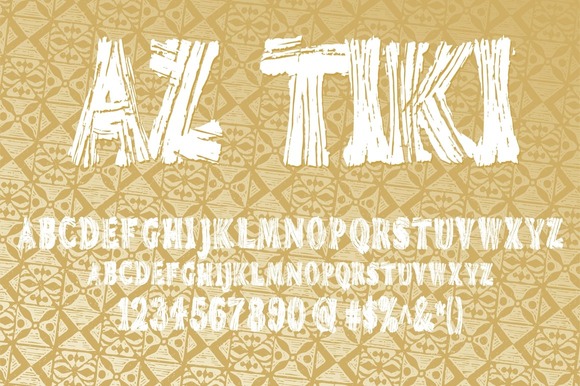
The Retro Charm of AZ Tiki Font: A Designer’s Delight
I’ll never forget the time I was working on a project for a client’s luau-themed party invitation. I had the design concept nailed, but I was struggling to find the perfect font to capture the essence of 50’s pop art from Polynesia. That’s when I stumbled upon AZ Tiki Font, and it was love at first sight! 💕
In this article, I’ll share my experience with AZ Tiki Font, its features, and how to make the most of it in your designs. Whether you’re a designer, crafter, or creative hobbyist, you’ll find this font to be a fantastic addition to your toolkit.
An Honest Review of AZ Tiki Font
• ✨ Unique and quirky design inspired by 50’s pop art from Polynesia
• ✅ Excellent for creating retro-themed designs, such as party invitations, posters, and flyers
• ✅ Supports OpenType features, glyphs, and stylistic alternates for added versatility
• ✨ Highly legible, even at smaller font sizes
While AZ Tiki Font is an excellent choice for many design projects, there are a few things to keep in mind:
• ⚠️ Limited character set compared to some other fonts
• 🤔 May not be the best choice for body text or long-form content due to its decorative nature
The Designer Inspiration Behind AZ Tiki Font
AZ Tiki Font was inspired by the iconic pop art of 50’s Polynesia, characterized by bright colors, fun patterns, and a carefree spirit. The font’s designer aimed to capture the essence of this retro aesthetic, creating a font that’s perfect for designs that require a touch of nostalgia and playfulness.
Q: What is AZ Tiki Font inspired by?
A: AZ Tiki Font is inspired by 50’s pop art from Polynesia, characterized by bright colors, fun patterns, and a carefree spirit.
Q: What type of designs is AZ Tiki Font best suited for?
A: AZ Tiki Font is perfect for designs that require a retro, tropical feel, such as party invitations, posters, flyers, and social media graphics.
Q: Does AZ Tiki Font support OpenType features and glyphs?
A: Yes, AZ Tiki Font supports OpenType features and glyphs, making it a versatile choice for designers.